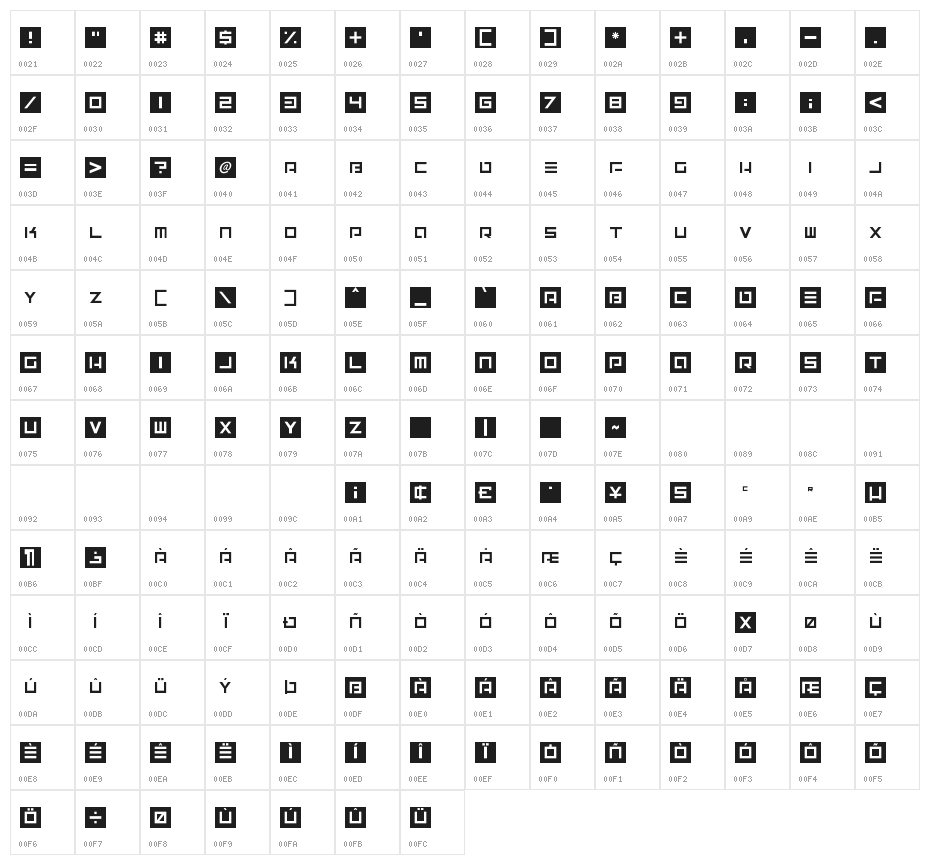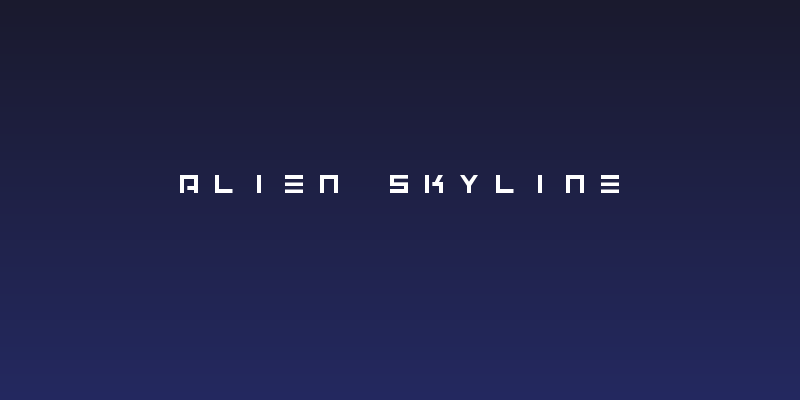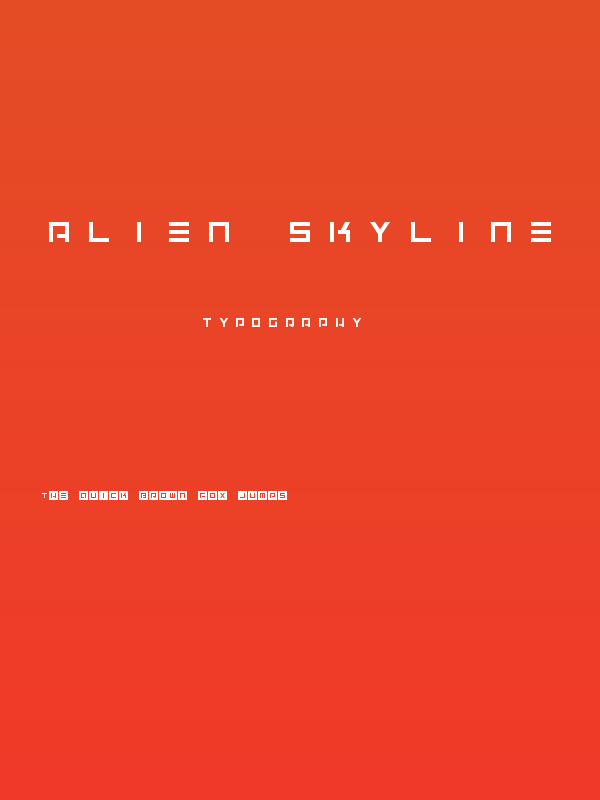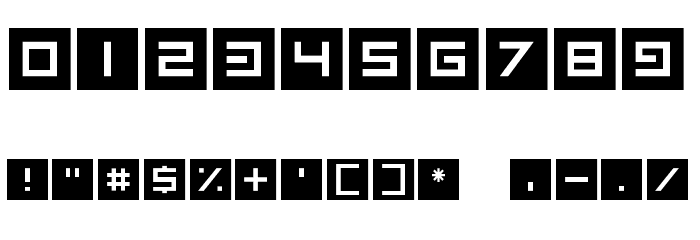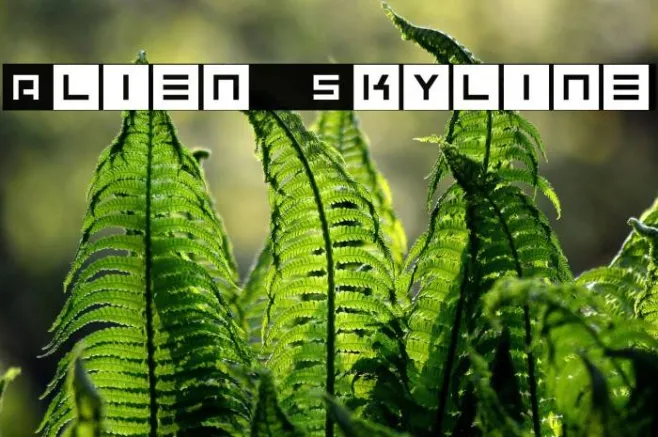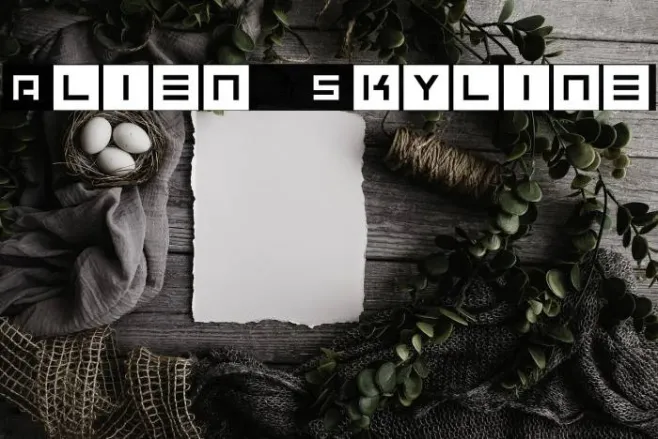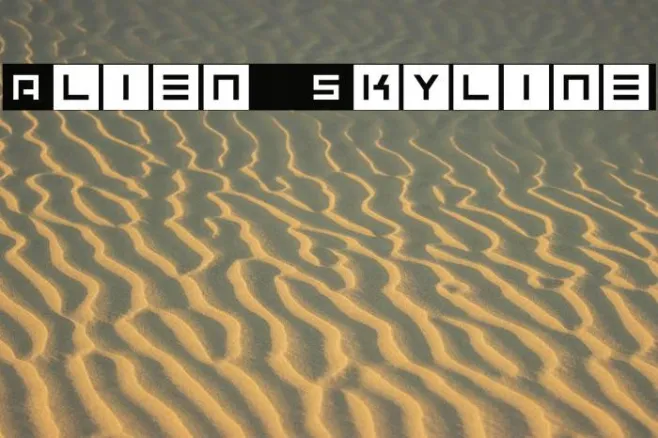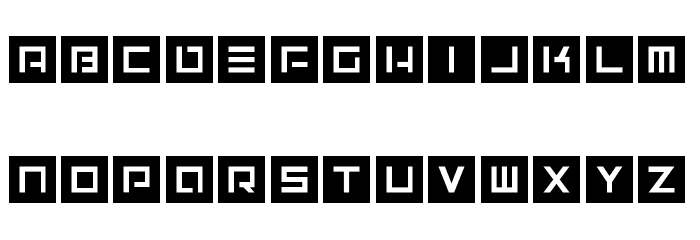
Alien Skyline Font
Alien Skyline Description
This font features a futuristic and geometric design, characterized by sharp angles and a blocky appearance. The uppercase letters are distinct with a uniform height, while the lowercase letters maintain a similar style, ensuring consistency across the typeface. The numerals and special characters follow the same design principles, making them easily recognizable and cohesive with the rest of the font. The overall aesthetic is modern and tech-inspired, suitable for projects that require a bold and striking visual impact.
| Proposed Projects | Ideal for sci-fi themed designs, video game interfaces, tech branding, and futuristic posters. |